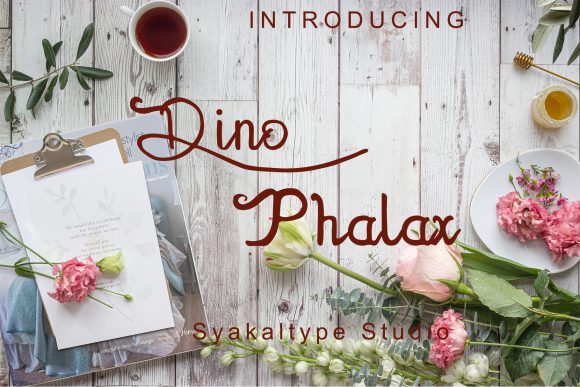
Prepare yourself to be captivated by Dhino Phalax, the exquisitely elegant script font that will effortlessly transform your design projects into breathtaking masterpieces. This handwritten gem, lovingly crafted by the talented syakaltype, exudes an air of sophistication and grace, making it the perfect choice for a wide range of creative endeavors.
Unleash your inner artist and let Dhino Phalax take you on a journey of aesthetic bliss. Whether you're designing wedding invitations that ooze timeless romance, heartfelt thank you cards that convey gratitude with a personal touch, or captivating quotes that inspire and uplift, Dhino Phalax will effortlessly elevate your words into works of art.
Visualize the beauty of your logos and business cards adorned with Dhino Phalax's enchanting characters. Its carefully crafted curves and flourishes will imbue your designs with a touch of elegance and professionalism that is sure to leave a lasting impression. And when it comes to greeting cards, Dhino Phalax will transform them into heartfelt expressions of love, friendship, and appreciation.
With Dhino Phalax as your creative companion, the possibilities are boundless. Its versatility extends to any design project that calls for a touch of handwritten charm. Let your imagination soar and watch as your designs blossom into creations that captivate and inspire.
Don't settle for ordinary fonts; embrace the extraordinary with Dhino Phalax. Its beauty and elegance will elevate your projects to new heights, leaving your audience spellbound and eager for more. Experience the magic of Dhino Phalax today and unlock a world of creative possibilities.